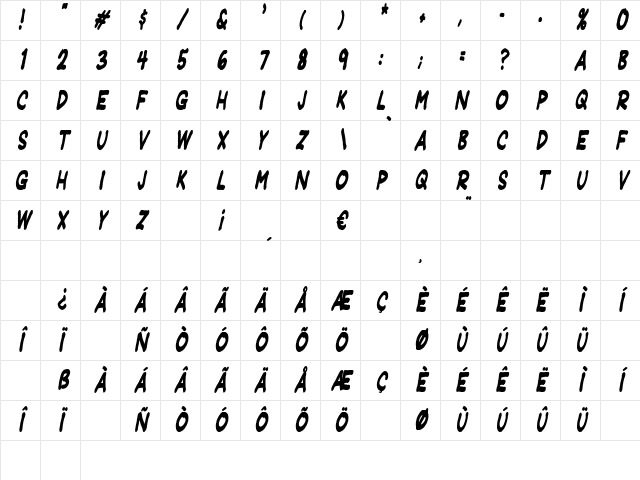
Complete JeffreyPrint JL Condensed Italic glyph index. Displaying only characters natively supported by JeffreyPrint JL Condensed Italic font.
JeffreyPrint JL Condensed is a composed and adaptable typeface that performs quietly and consistently across a wide range of design contexts. The slanted form adds forward momentum and visual energy. Its narrow stance lets it pack a punch even in space-constrained designs.
Pro Tip: Use JeffreyPrint JL Condensed for emphasis, pull quotes, and subheadings where its slanted energy can add rhythm to the layout.